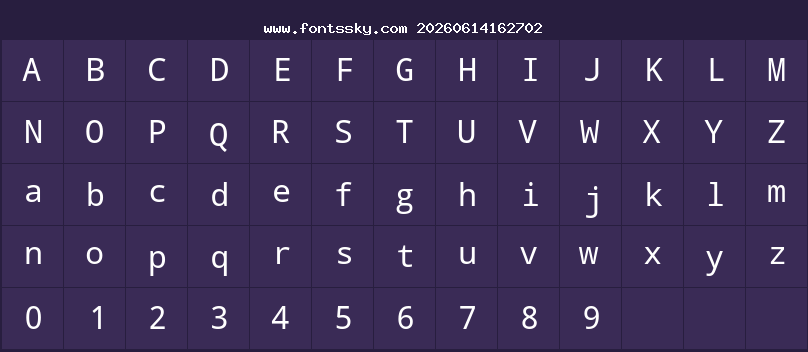
Noto Mono Preview
• Font Name: Noto Mono
• Font ID: Ascender - Droid Sans Mono - build 113
• Full Font Name: Noto Mono
• PostScript Name: NotoMono
• Designer: Monotype Design Team
• Manufacturer: Monotype Imaging Inc.
• Description: Data hinted.
About Noto Mono.ttf
Noto Mono.ttf is a modern, elegant sans-serif font designed for ultimate readability and visual harmony. Perfect for branding, headlines, web design, and print materials.